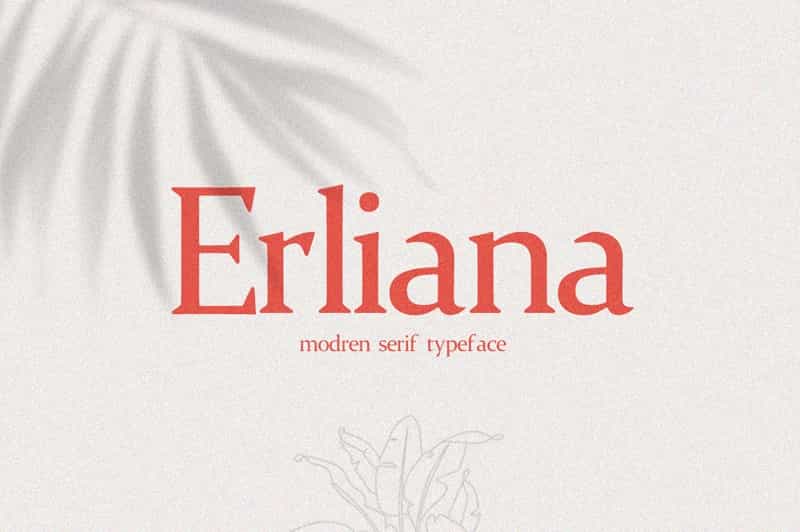
Erliana is a beautiful serif font with many available styles for customization. This design is based on geometric concepts and the idea of balance; Erliana looks stylish and elegant.